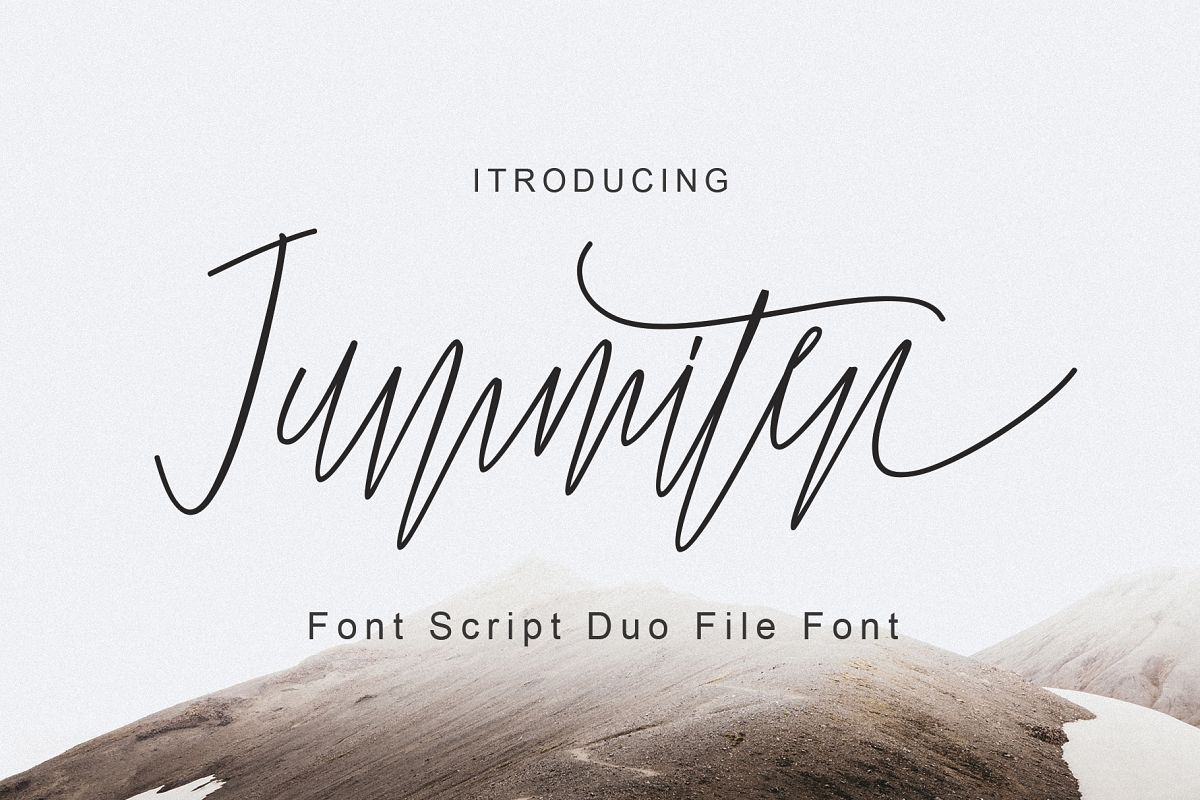
Jummiten Font Duo
Jummiten
JummitenLine
INTRODUCING
Jummiten Duo Font Modern Calligraphy. This font was designed by handwriting, and it has a modern and unique forms of calligraphy, the writing style is very natural. Jummiten has a very unique style of calligraphy, it is very suitable for use in the work of modern design.
Can be used for various purposes.such as headings, logos, wedding invitation, t-shirt, letterhead, lable, news, posters, badges etc. To enable the OpenType Stylistic alternates, you need a program that supports OpenType features such as Adobe Illustrator CS, Adobe Indesign & CorelDraw X6-X7.a font that made the hand by having the character up and down like a dancer. Anteater has a very unique style of calligraphy, it is very suitable for use in the work of modern design.